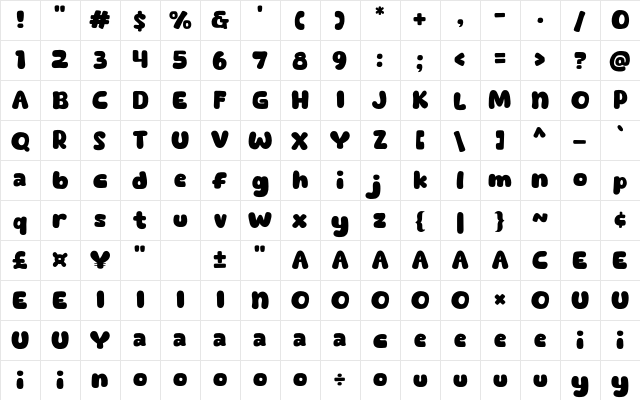
Machiato Show Regular Free Font
Machiato Show Regular
Foundry: Khurasan
Designer: Khurasan
Design Context for Machiato Show
Machiato Show is a composed and adaptable typeface that performs quietly and consistently across a wide range of design contexts.